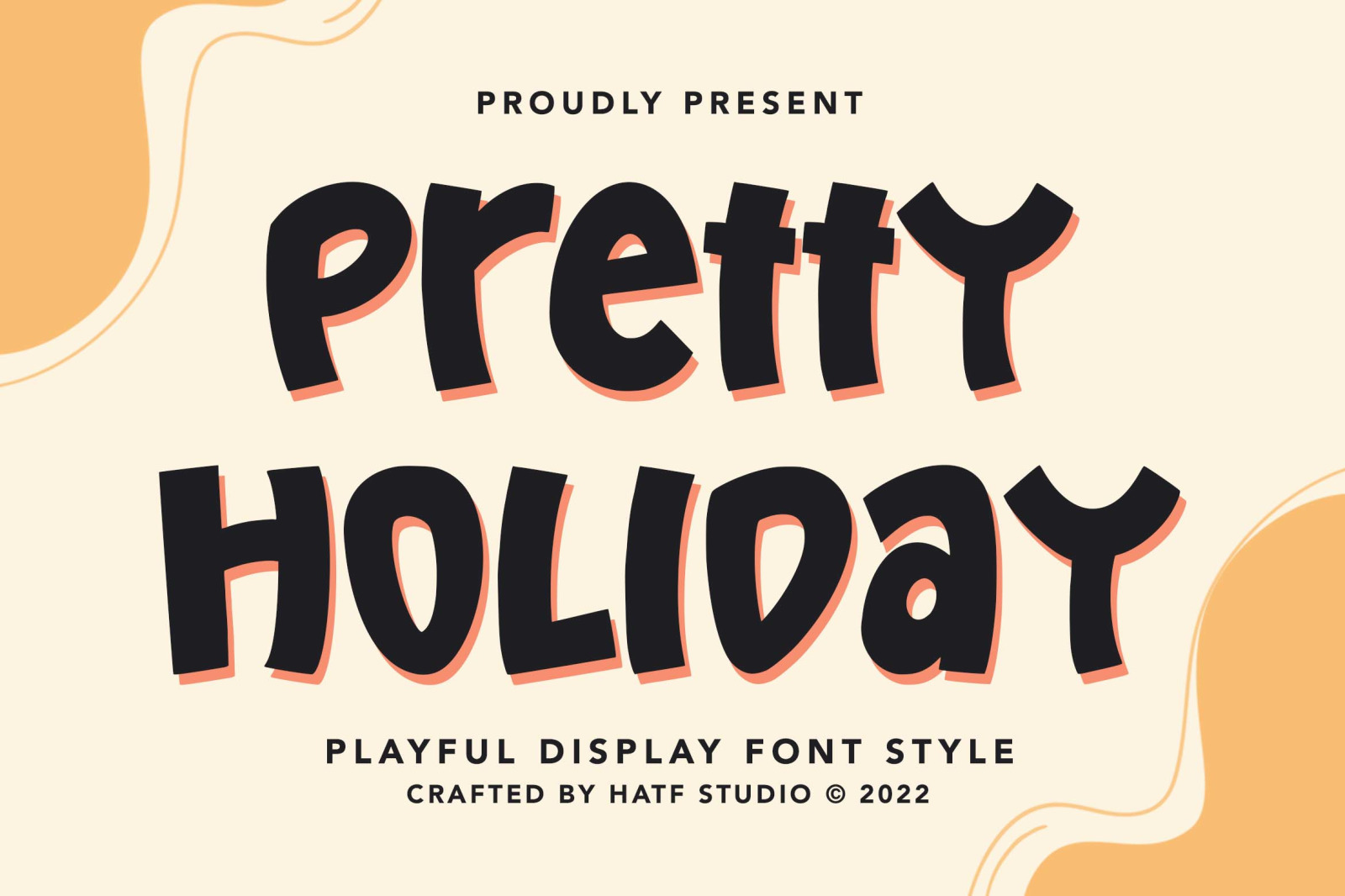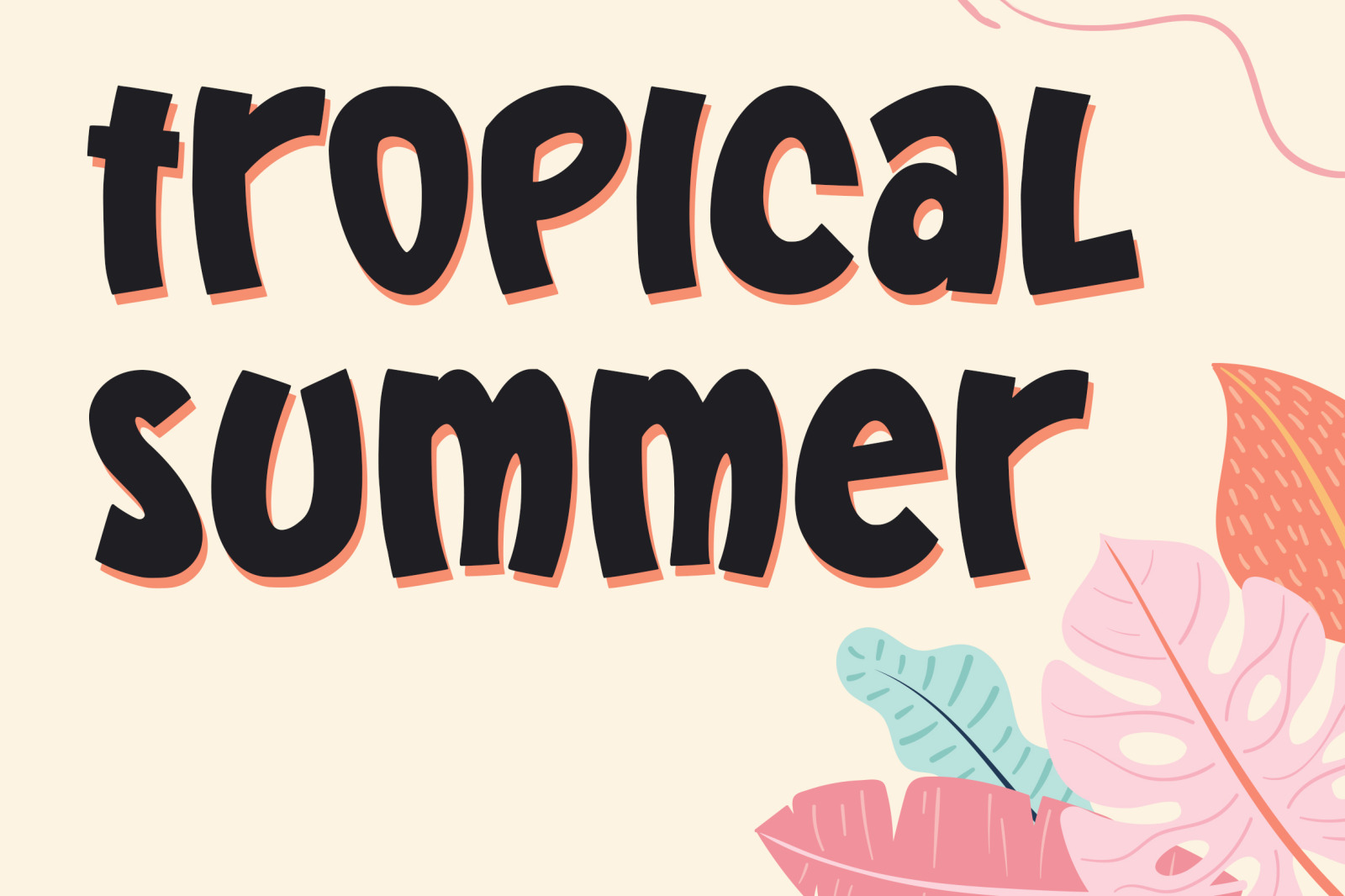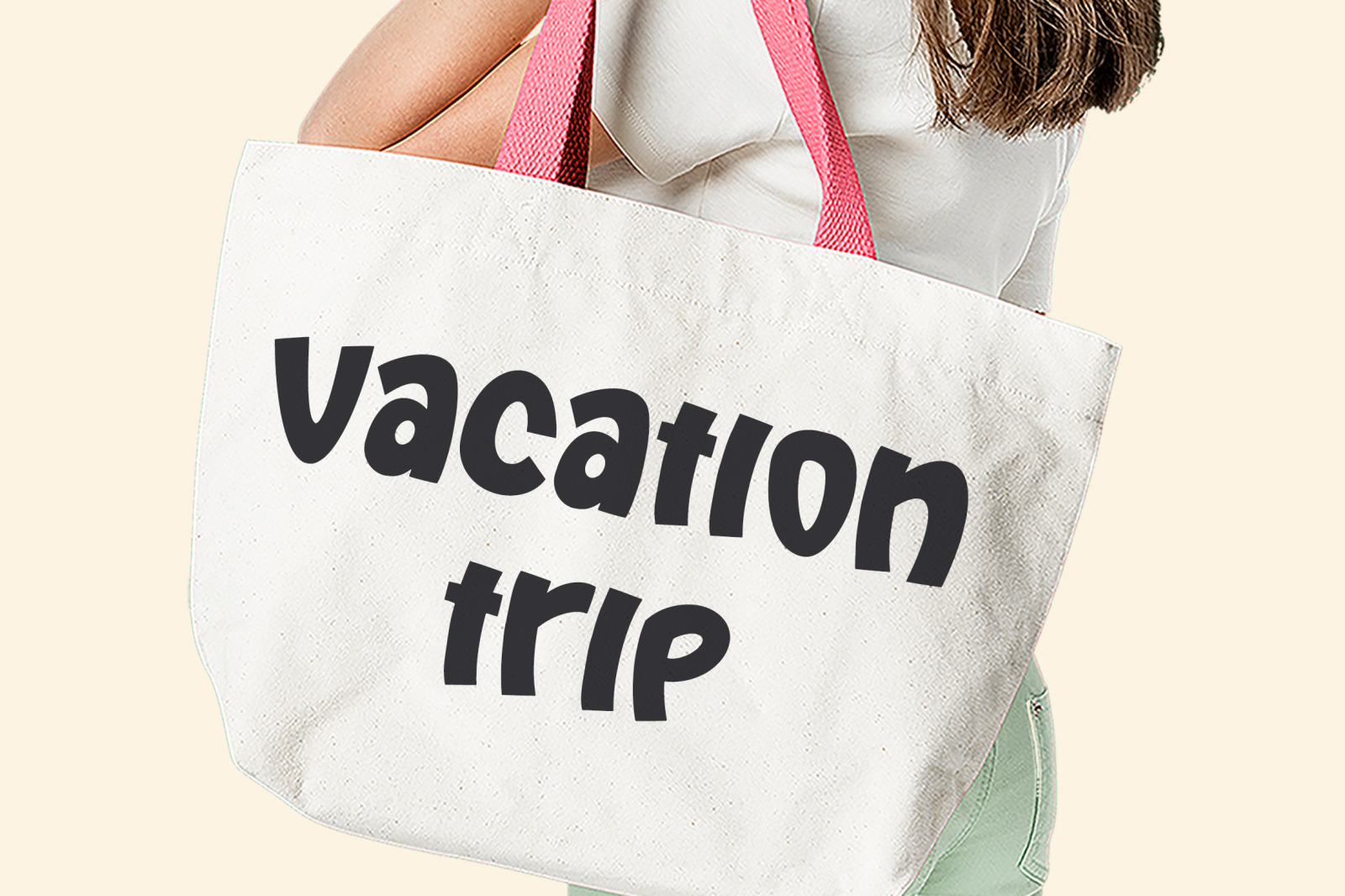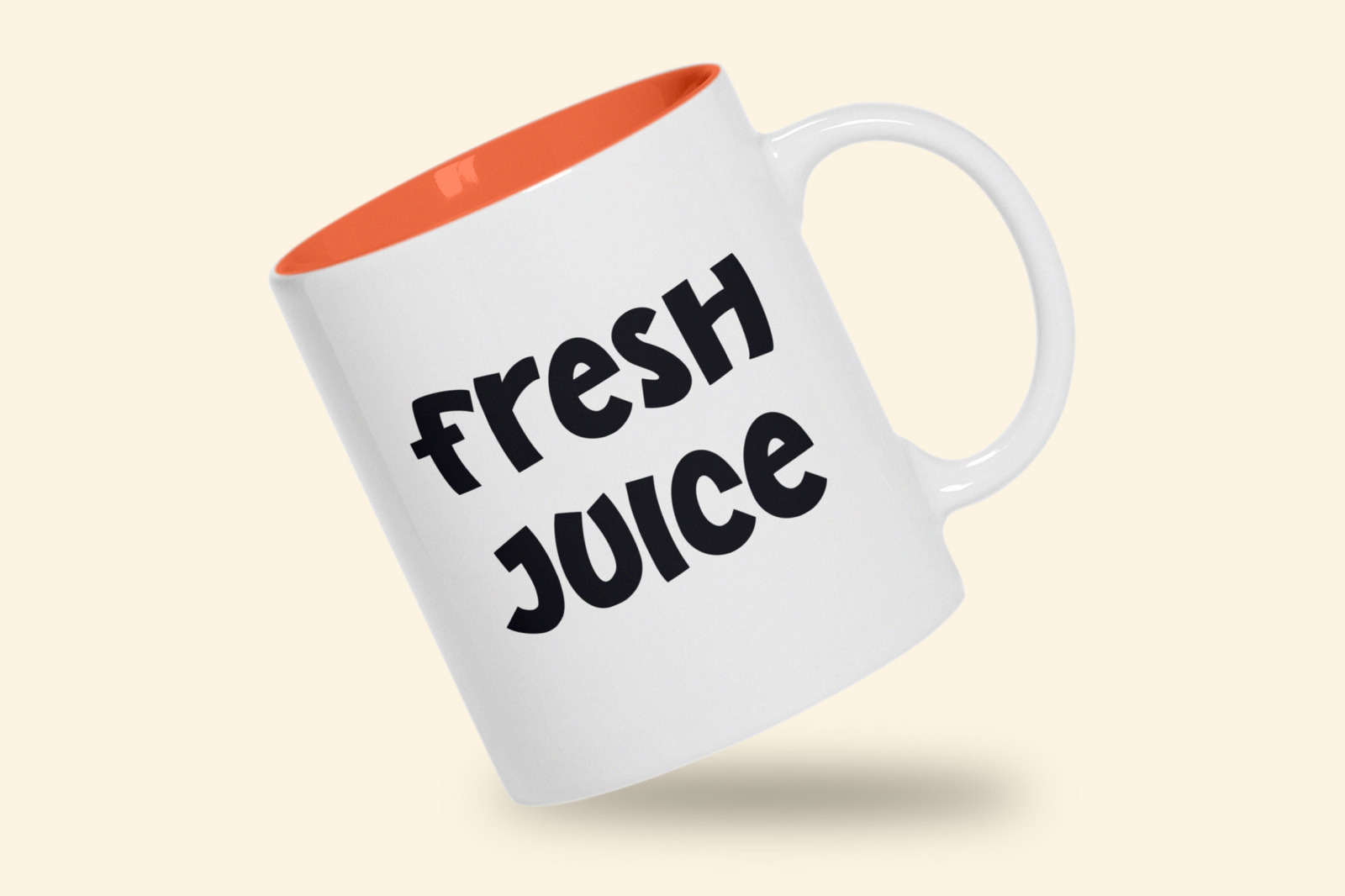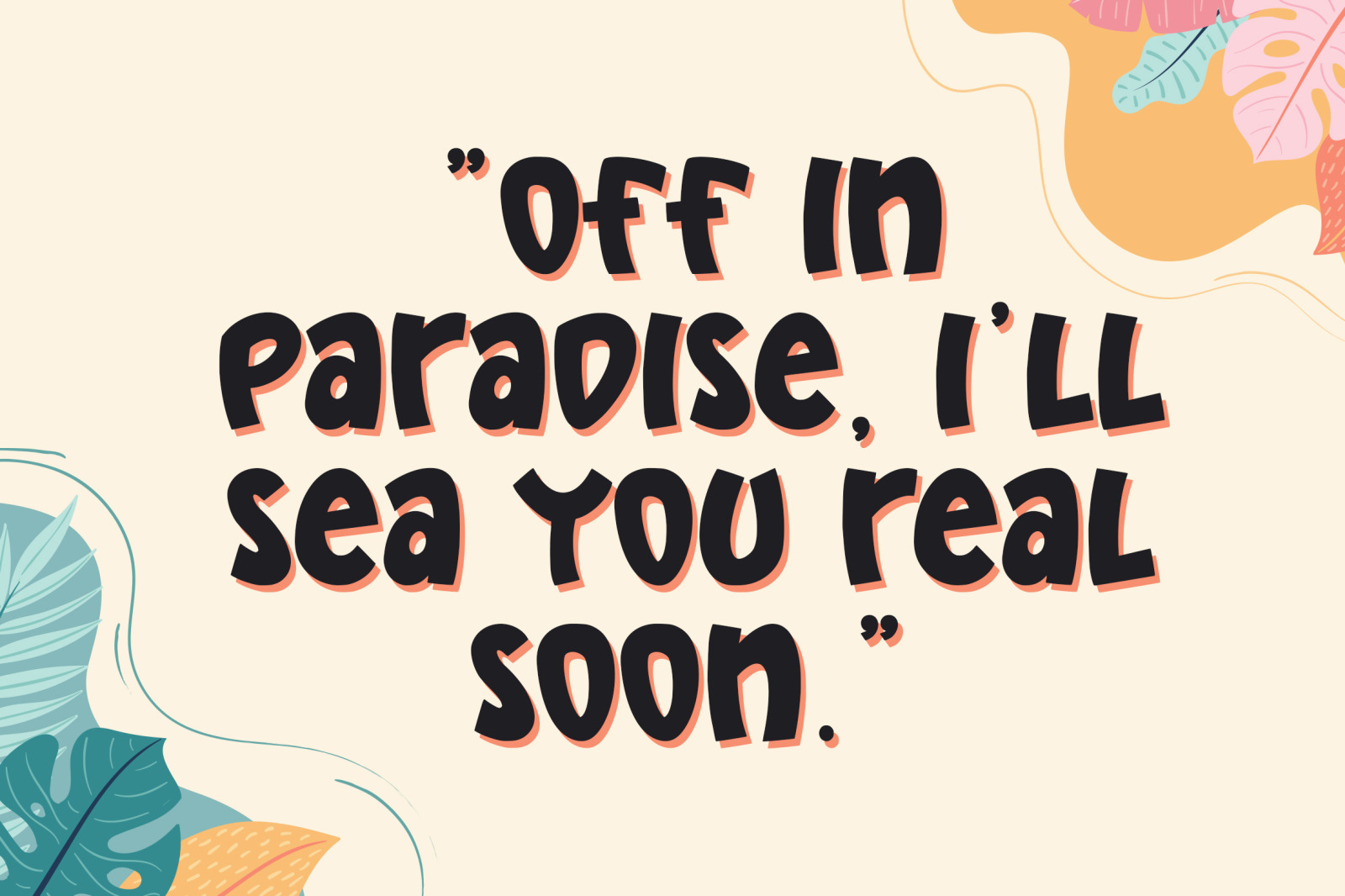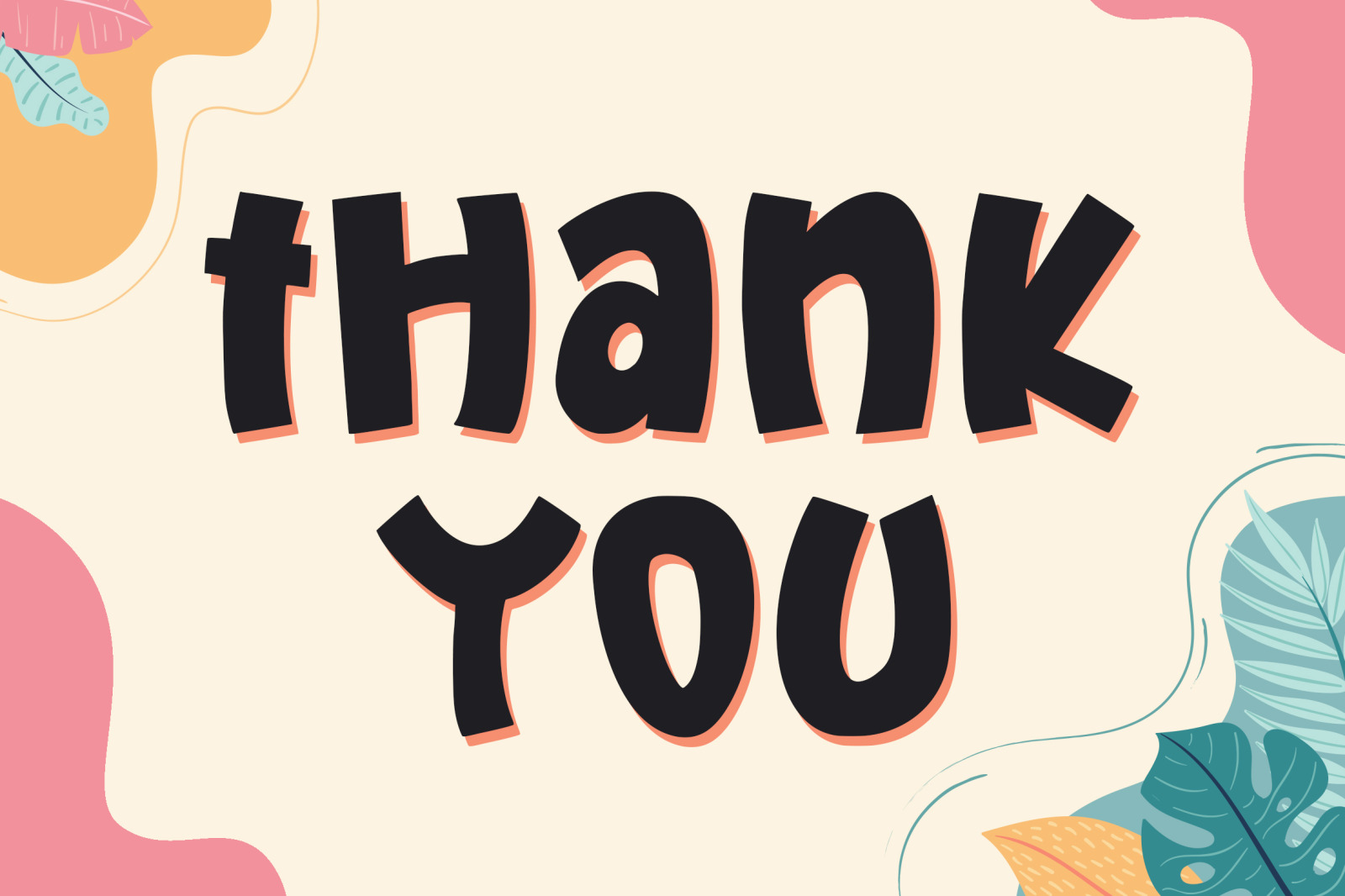
Pretty Holiday Font
Pretty Holiday is a playful display font. A work of typography that combines cute, creative and vibrant elements. With eccentric characters and a cheerful style, this font brings a fun and entertaining impression to its readers. Each letter is designed with unique details, creating a tempting impression to explore. With courage in choosing colors and an expressive design, this font is suitable for projects that want to convey a message with a touch of fun and excitement, such as poster designs, greeting cards, or logos that want to highlight a playful and adorable side.